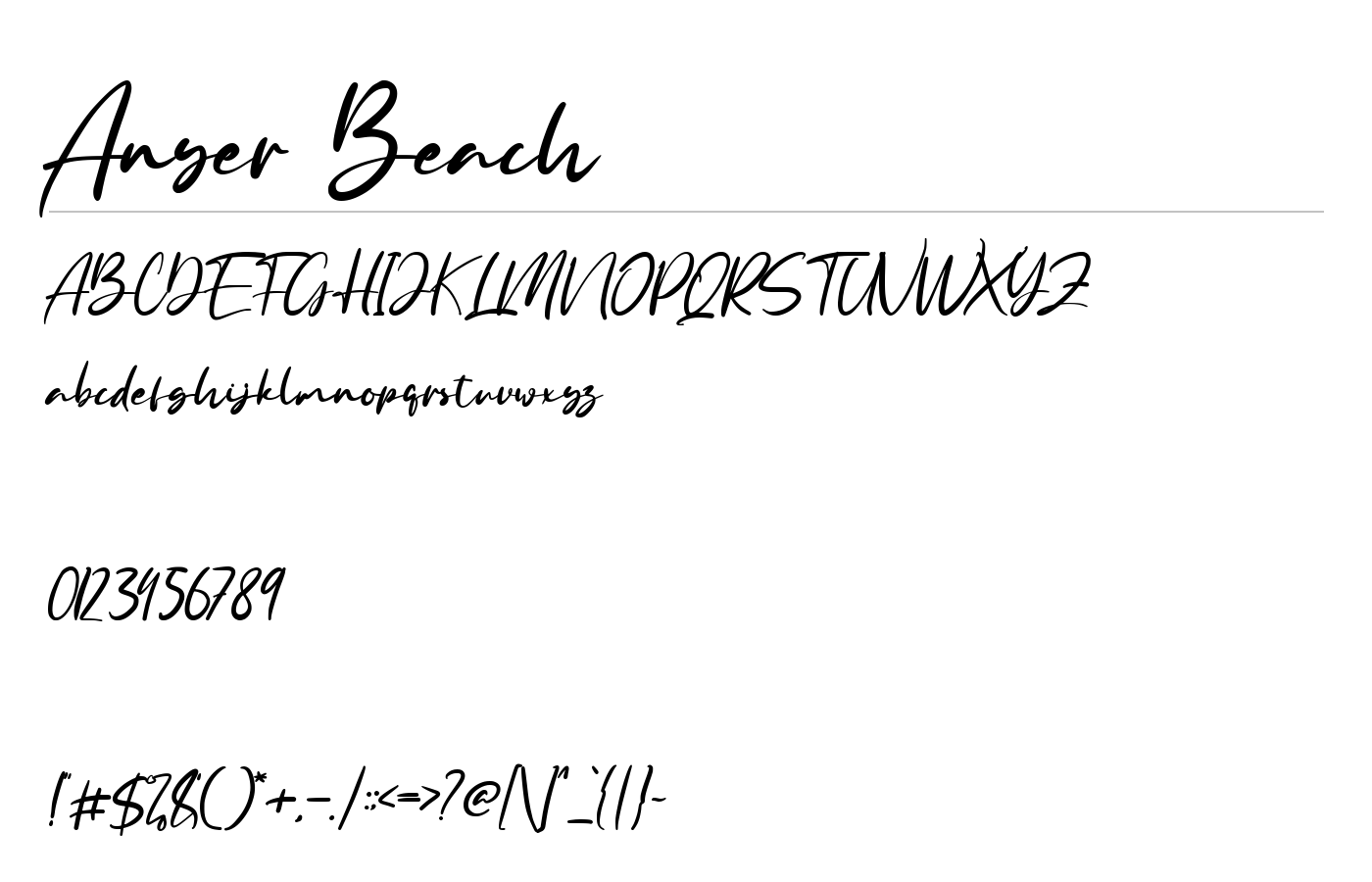
Anyer Beach is a lively, casual script font with a hand-drawn feel that combines elegance and playfulness through its fluid, slightly textured strokes. Its smooth, slightly slanted letterforms create a relaxed and approachable vibe, making it ideal for branding, invitations, and lifestyle projects that want to convey warmth and personality. This font works well in creative headlines and logos where a natural, beachy charm is desired.
Anyer Beach Font
About Anyer Beach Font